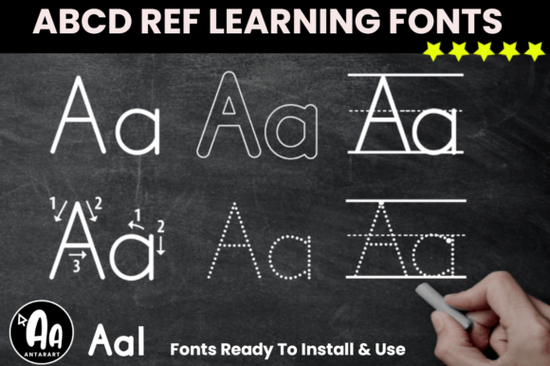
Creating handwriting practice sheets that actually match US school standards can be frustrating if you start from scratch. The Abcd Tracing Alphabet Letters Bundle Font solves that by giving you display fonts built around the D’Nealian Method, the same slanted, continuous-stroke approach taught in many American classrooms. Instead of hunting for dotted line graphics or vector tracing paths, you install the fonts and type letterforms, words, or full sentences that instantly print with uniform guide lines and start dots exactly what early learners need.
What Makes the D’Nealian Method So Effective for Early Writing?
D’Nealian handwriting bridges the gap between manuscript print and cursive. Letters are slightly slanted with exit strokes, which makes the transition to connected writing smoother. For young children, this reduces letter reversals and builds muscle memory naturally. The Abcd Tracing Alphabet Letters Bundle captures that slanted, flowing letter structure, including the distinct a, t, and k forms that differ from traditional block print. When you create a worksheet with these fonts, students trace a lowercase a that already carries a small tail at the bottom right exactly the shape they’ll need for joined-up writing later.
Using a D’Nealian-based tracing font also brings consistency across all materials. You can make name-writing strips, morning work sheets, or take-home alphabet cards that match what the classroom curriculum uses. No more printing one style from a free clipart set and hoping it lines up with the school workbook.
How Can This Font Bundle Save You Time Making Worksheets?
If you’re a TpT seller, kindergarten teacher, or print-on-demand designer creating educational products, you likely spend hours tweaking letter paths in design software. With this display font family, you simply type the text in your word processor or graphic program, adjust the size, and print. The bundle includes solid, dotted, and arrows-and-lines variants for uppercase and lowercase letters. You can build a full alphabet tracing booklet in an afternoon.
- Solid fonts for display posters or flashcards.
- Dotted fonts for tracing exercises.
- Fonts with directional arrows and line guides to show proper stroke order.
Because each style stays true to the D’Nealian slanted posture, mixing them within one worksheet looks cohesive. For instance, you might set a large dotted “A” for tracing and place a smaller solid example next to it as a reference no alignment gymnastics needed.
What Activities Work Best with These Tracing Fonts?
Most buyers use the bundle for classroom printables and editable student name mats. But you can stretch it way beyond simple letter tracing. Some practical ideas:
- Name and address worksheets: customize one sheet per student and laminate it for reuse.
- Sentence strips: type a short positive affirmation or daily message in the dotted font so kids trace and read.
- Sight word builders: combine the tracing font with a picture or clipart to connect the word shape to meaning.
- Custom thank-you cards: let children trace a short message, then decorate perfect for Mother’s Day crafts.
- Print-on-demand workbooks: create D’Nealian-style practice pads or PDFs for homeschool shops.
Because the letters carry the built-in slanted guide strokes, you can increase the font size to poster scale without losing the D’Nealian proportions. This is especially handy for making large floor mats or wall posters where the tracing path needs to be clear from a distance.
Quick Setup Checklist for Your First Printable
- Install all four font variants (solid, dotted, arrows, guide lines).
- Open Word, Google Docs, or your design tool and create a blank page with a light gray writing line background if needed.
- Type a few letters in the dotted D’Nealian font at 60pt and print a test page. Check that the dashed lines are uniform and the slant is consistent.
- Mix a solid reference letter beside the dotted one to show the finished shape.
Once everything looks crisp, you can batch-create dozens of custom worksheets in minutes and focus on the creative side of teaching or selling instead of rebuilding letter strokes.